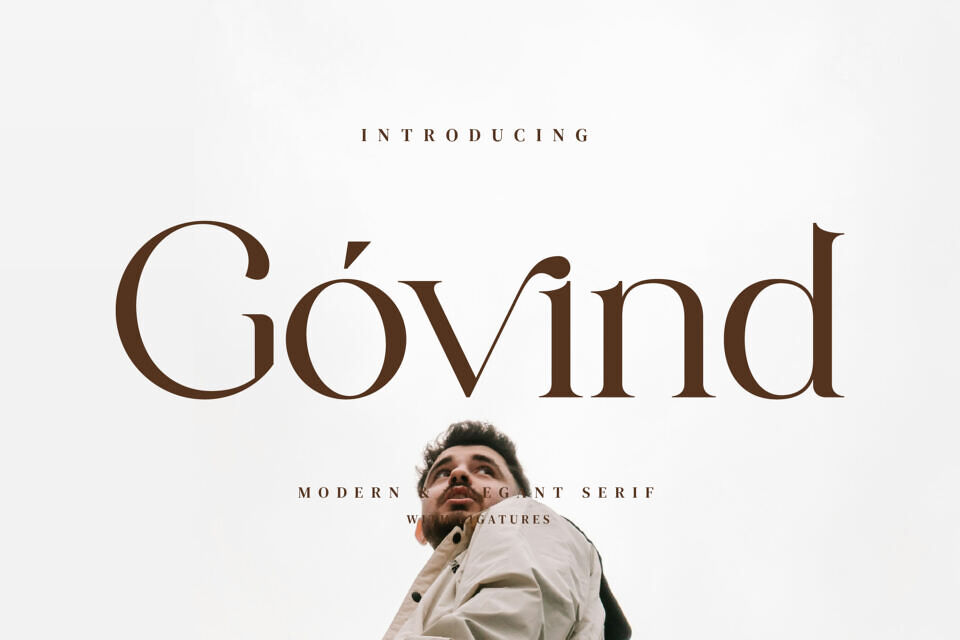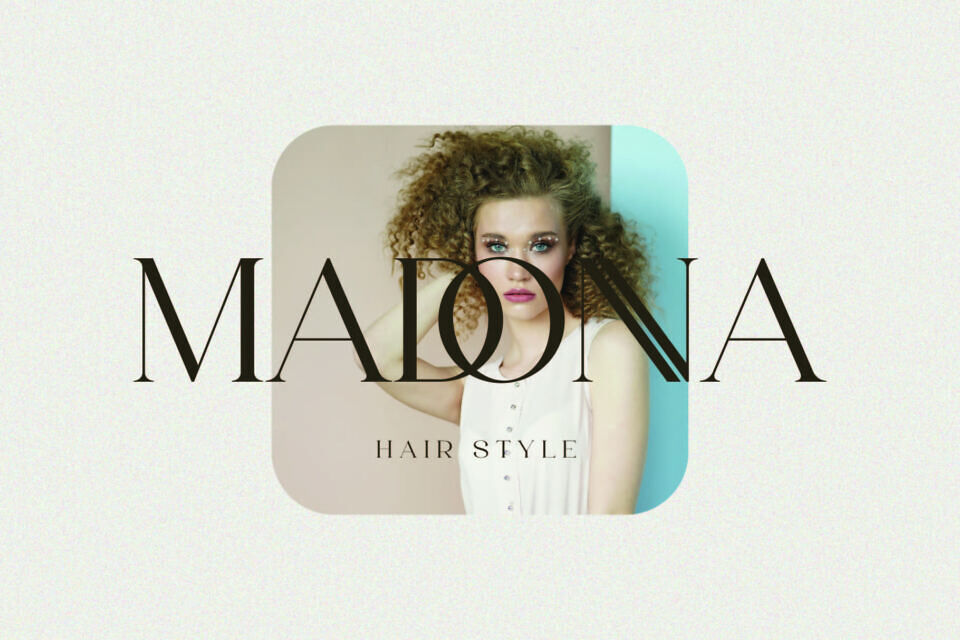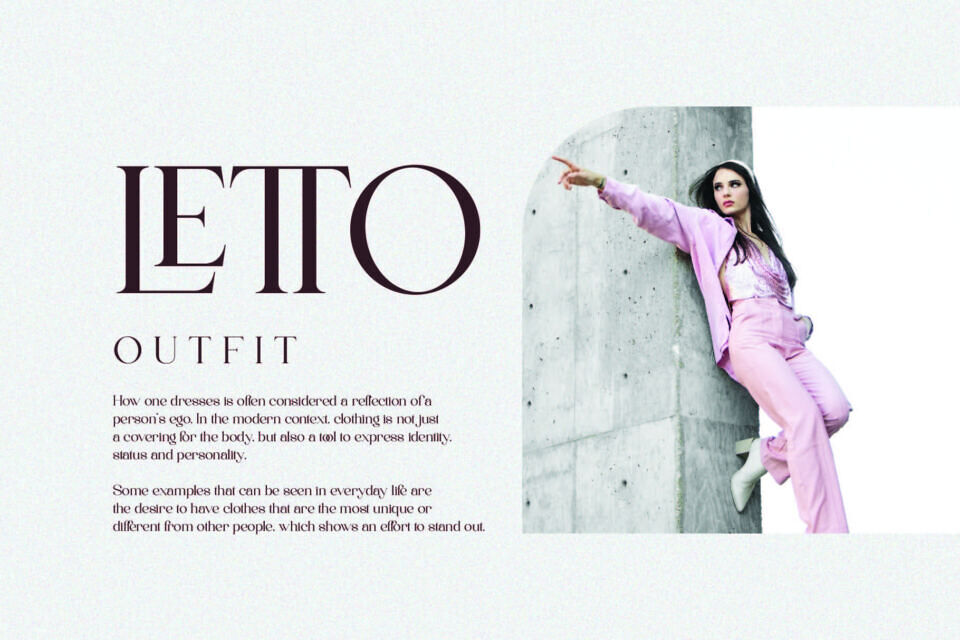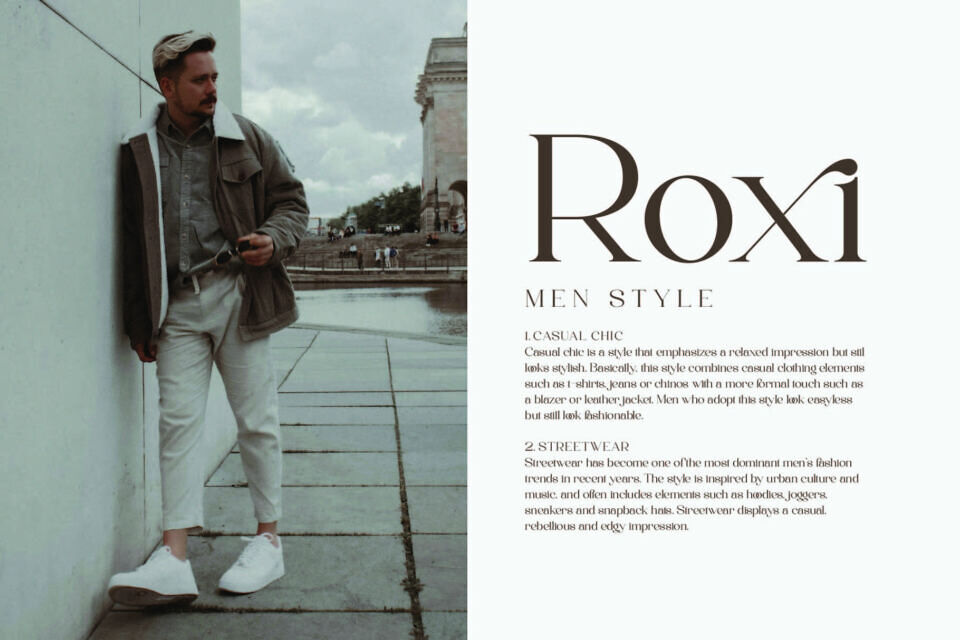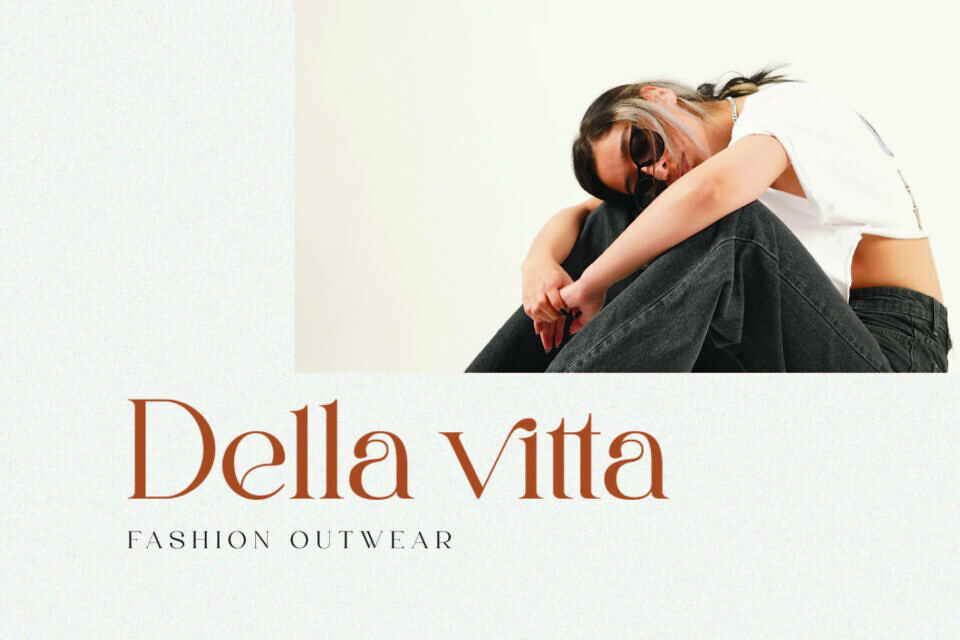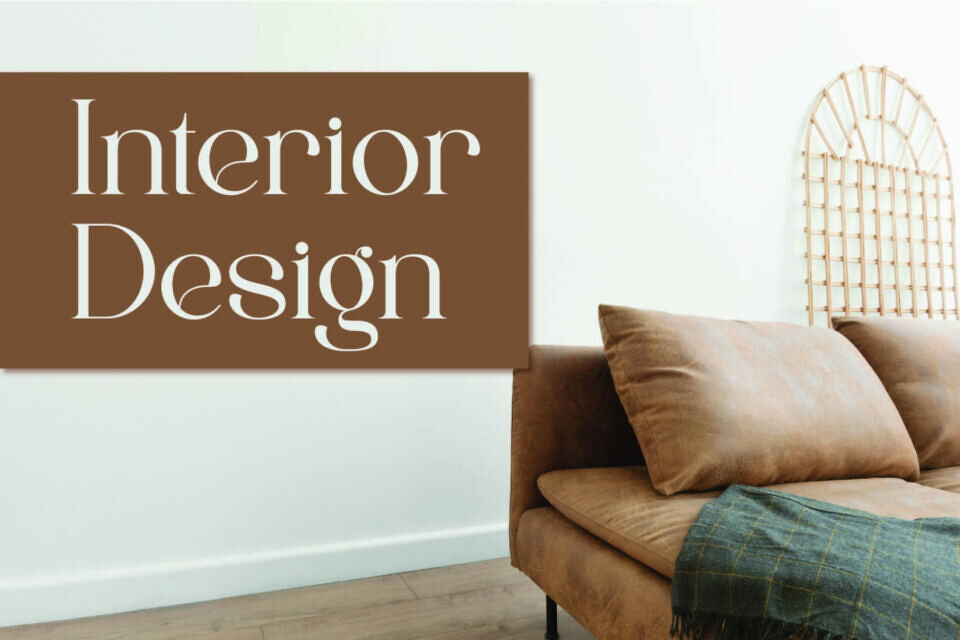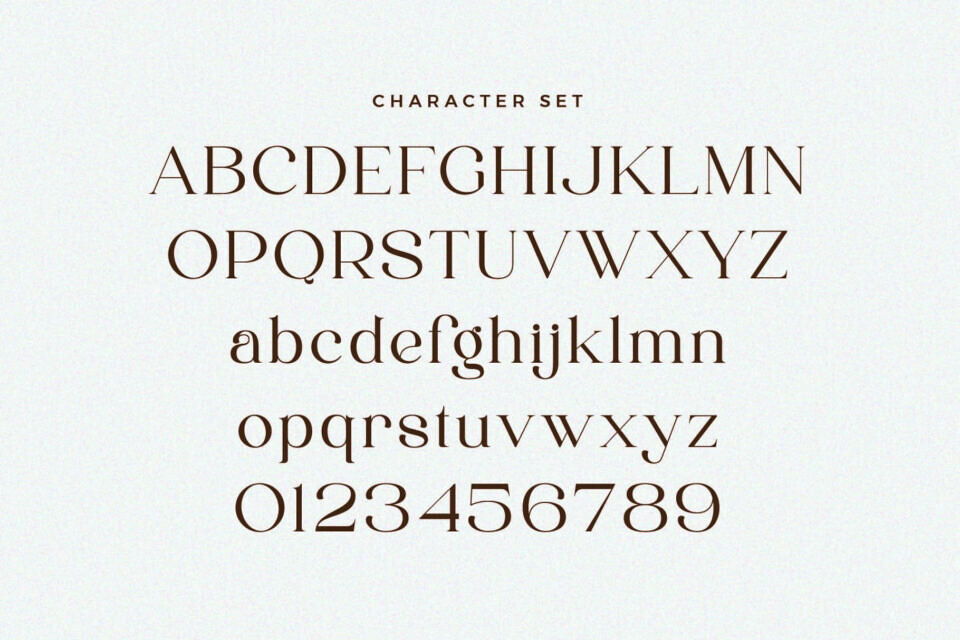
Govind Font
Govind is a sleek, modern typeface that draws inspiration from minimalist design. It’s ideal for creating visually appealing templates, brochures, and fashion headlines, as well as video titles, advertisements, logos, and branding materials.